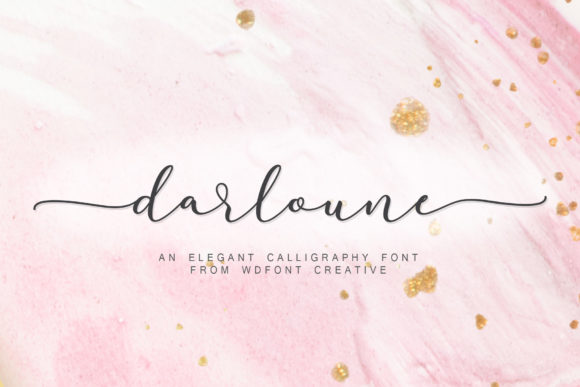
Unleash the True Essence of Your Designs with Darloune Font: A Seductive Handwritten Script for Romance and Elegance
In the realm of design, where creativity knows no bounds, lies a font that captures the ethereal essence of romance and elegance like no other—Darloune Font. A light and fresh handwritten script, Darloune weaves its delicate charm into every design project, igniting a spark of passion and sophistication. Prepare to be mesmerized as we embark on a journey into the world of Darloune, where beauty and inspiration intertwine.
Darloune, the brainchild of the acclaimed WDfont Creative, is not merely a font; it's an invitation to let your imagination soar. Inspired by the allure of handwritten love letters and the timeless charm of classic novels, Darloune effortlessly evokes a sense of nostalgia and sentimentality. Its gently flowing lines, reminiscent of a lover's caress, gently caress the senses, creating designs that whisper tales of romance and captivate the hearts of all who behold them.
With Darloune as your creative companion, you'll find yourself immersed in a world where every word carries weight and every design radiates an aura of sophistication. Its meticulously crafted characters, each a testament to the art of calligraphy, dance across the screen, leaving a trail of elegance and grace in their wake. Whether it's a wedding invitation that exudes timeless charm, a logo that speaks of luxury and refinement, or a social media post that oozes allure, Darloune elevates your designs to new heights, ensuring they leave an unforgettable impression.
Darloune's versatility knows no bounds. Its ability to seamlessly adapt to a myriad of design styles and genres makes it an indispensable tool in the arsenal of any creative professional. From the delicate curves of a vintage-inspired logo to the bold strokes of a modern advertising campaign, Darloune effortlessly complements and enhances your vision. Its inherent charm adds a touch of sophistication to even the simplest of designs, transforming them into works of art that resonate with your audience.
Immerse yourself in the world of Darloune and let your creativity flourish. Its romantic aura will ignite your passion, propelling you to create designs that captivate and inspire. As your fingers dance across the keyboard, guided by the enchanting flow of Darloune's characters, you'll discover a newfound love for your craft, a love that will permeate every aspect of your work. Embrace the allure of Darloune and unlock the true essence of your designs.